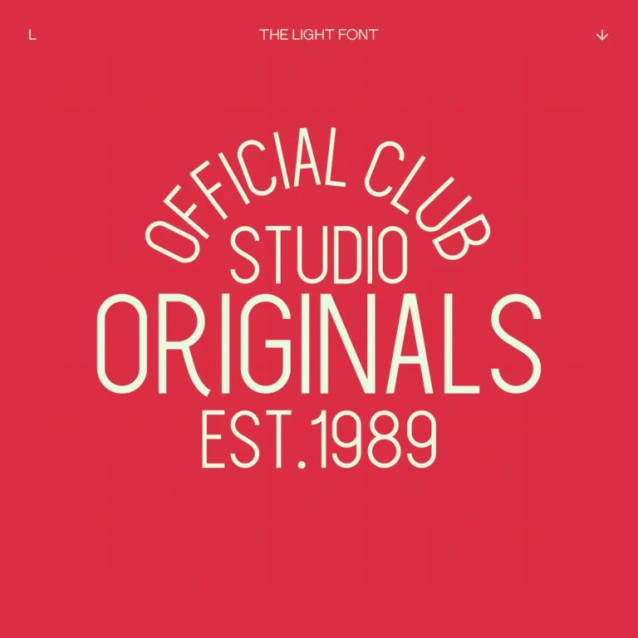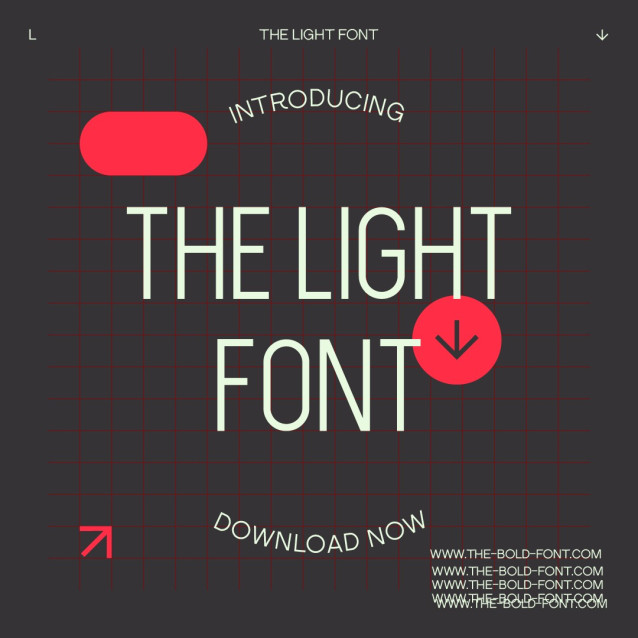
The Light Font
The Light Font a thin, condensed font designed for modern elegance. Suitable for any design needs : logo, branding, modern advertising design, logos, poster quote, book / cover Title, editorial design, website / blog, card, t-shirts, and any hand-lettered needs.